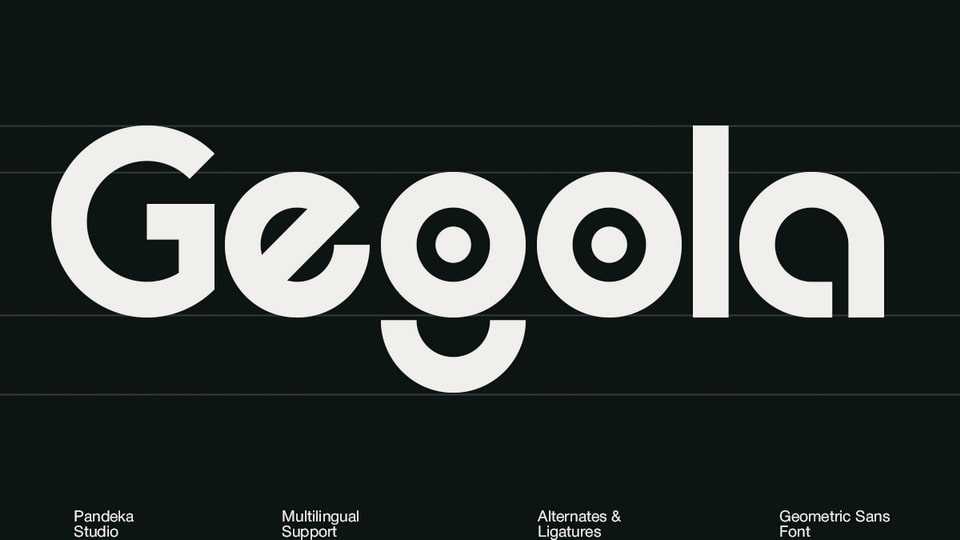
Download Gegola font, a bold geometric sans-serif typeface with a modern, futuristic edge designed to command attention while maintaining legibility.